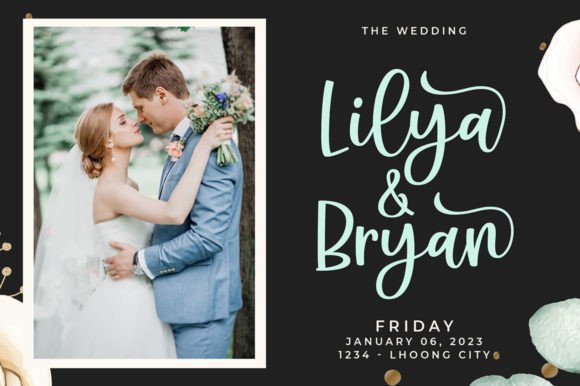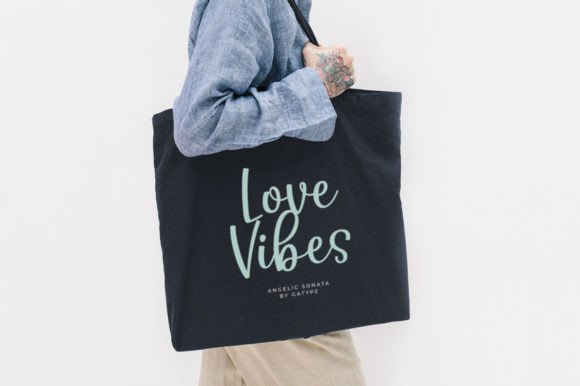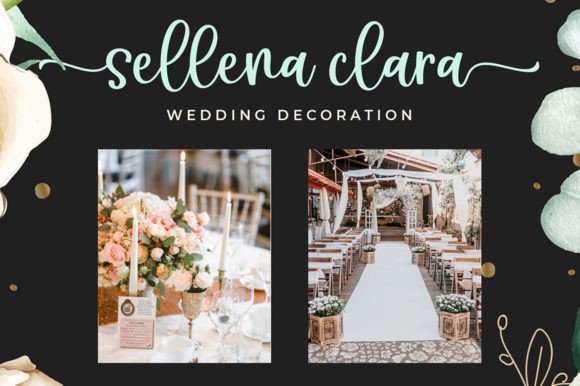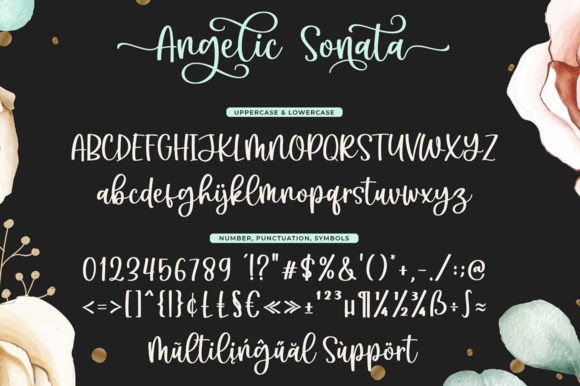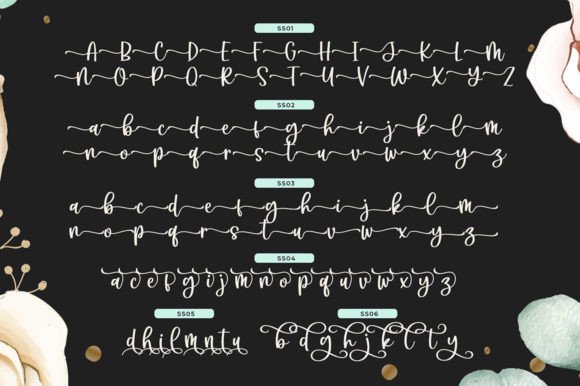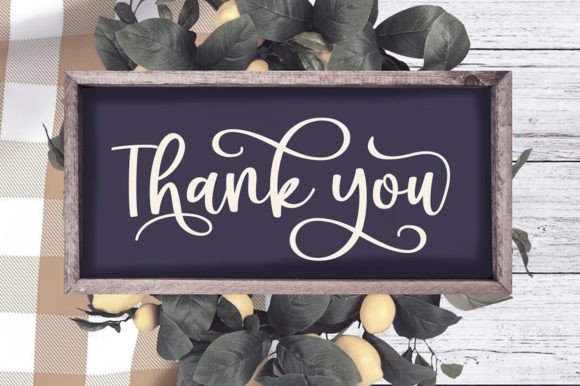
Angelic Sonata Font
A Modern and Elegant Handwritten Script
Angelic Sonata is a modern handwritten script font designed to bring elegance and personality to any project. With its graceful lines and smooth curves, it captures the natural beauty of true handwriting. The font includes binders and alternate characters, making it easy to create a custom, organic look.
Whether you’re designing wedding invitations, branding materials, or product packaging, Angelic Sonata adds a sophisticated and warm feel to your work.
Angelic Sonata is a versatile font you can use in countless ways. For weddings, it’s perfect for invitations, save-the-dates, menus, and thank you cards. The delicate script style sets a romantic tone and makes every detail feel extra special.
For branding, Angelic Sonata works beautifully on logos, business cards, and product labels. Its modern handwritten look feels both professional and approachable, giving your brand an authentic voice.
Use it for quotes, social media graphics, and blog headers to add a personal, creative flair. The font is also great for packaging and handmade product tags, especially if you want to convey a feminine or organic style.
Even with its artistic script, Angelic Sonata stays clear and legible at any size. Balanced spacing and smooth letter connections ensure your text always looks polished and professional.
For the best results, pair Angelic Sonata with a clean sans-serif font. Use Angelic Sonata for headlines and key phrases, and the sans-serif for body text. This creates a modern layout that feels light and elegant.
To highlight Angelic Sonata’s refined look, use soft colors and minimalist backgrounds. Shades like blush pink, ivory, and muted sage complement the handwritten strokes without overpowering them.
For wedding stationery, consider adding delicate floral elements or watercolor textures to match the romantic feel. When designing logos, keep the layout simple so the font remains the star of the composition.
On social media, embrace plenty of white space and gentle color gradients to make your content feel clean and professional.
Think about the atmosphere you want to create. Angelic Sonata is perfect for projects that should feel modern, warm, and graceful.
Angelic Sonata isn’t just a handwritten font—it’s a complete design tool that helps you add elegance and authenticity to any project. From wedding calligraphy to small business branding, this font adapts effortlessly to your ideas and makes them feel personal and special.